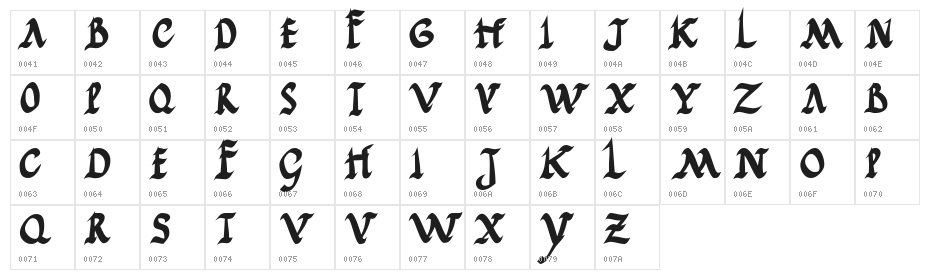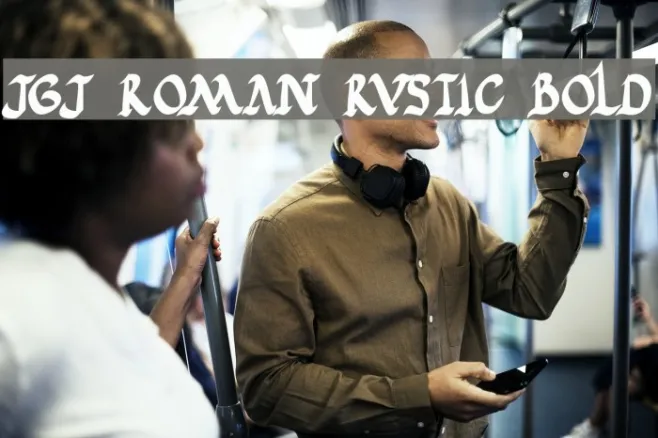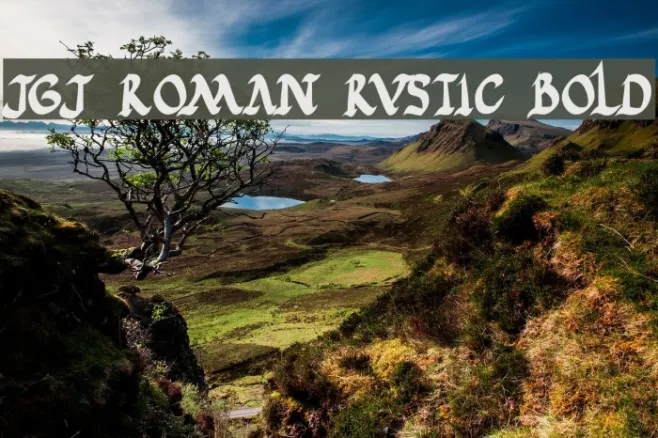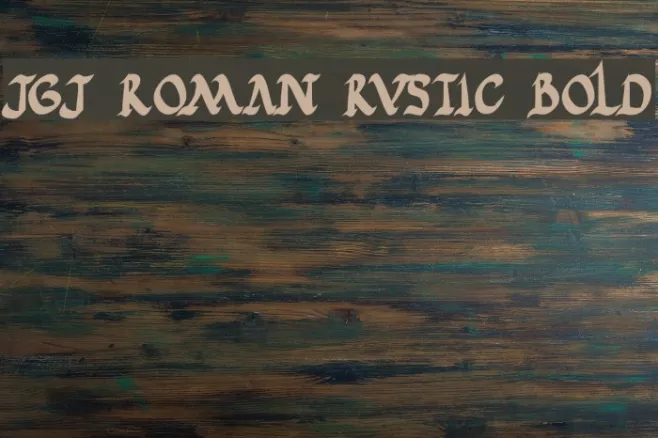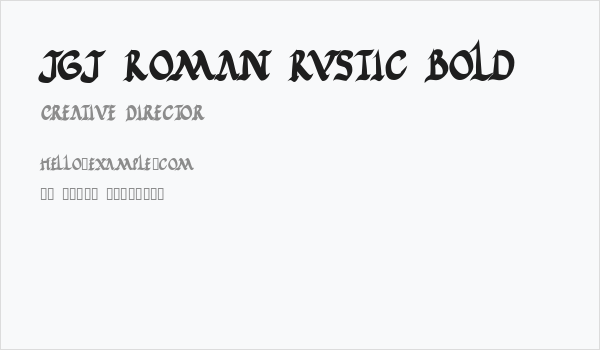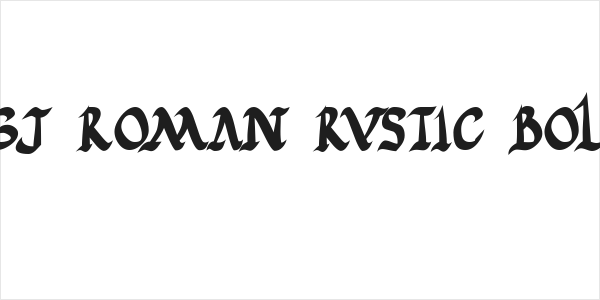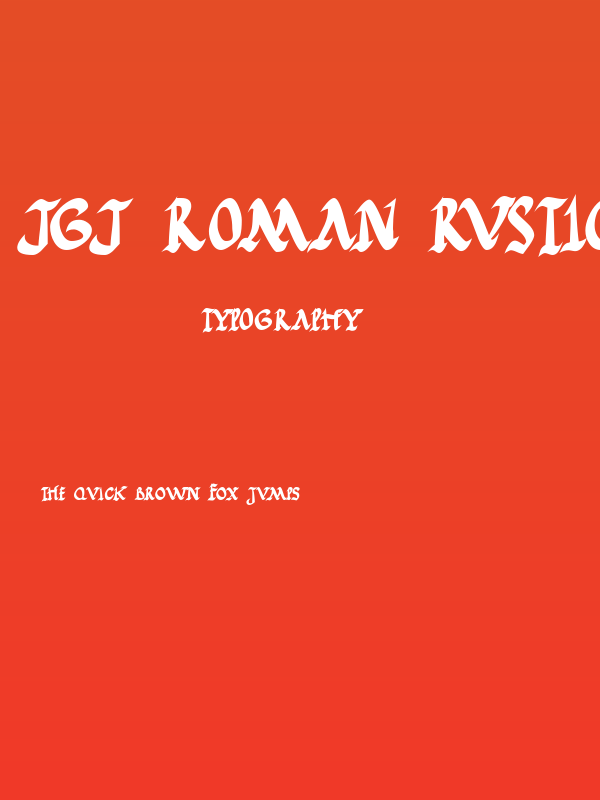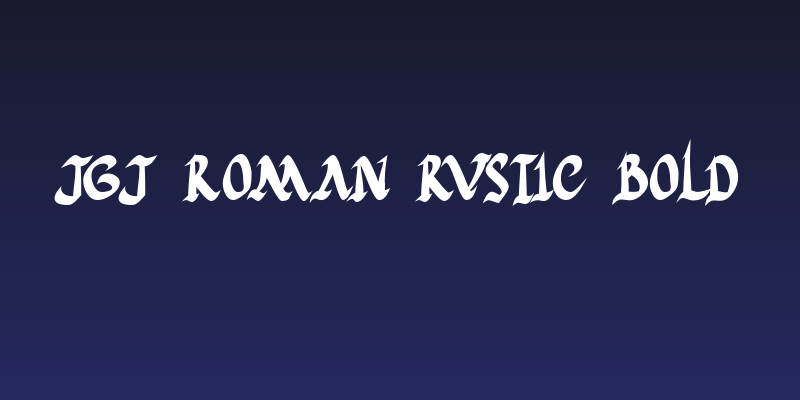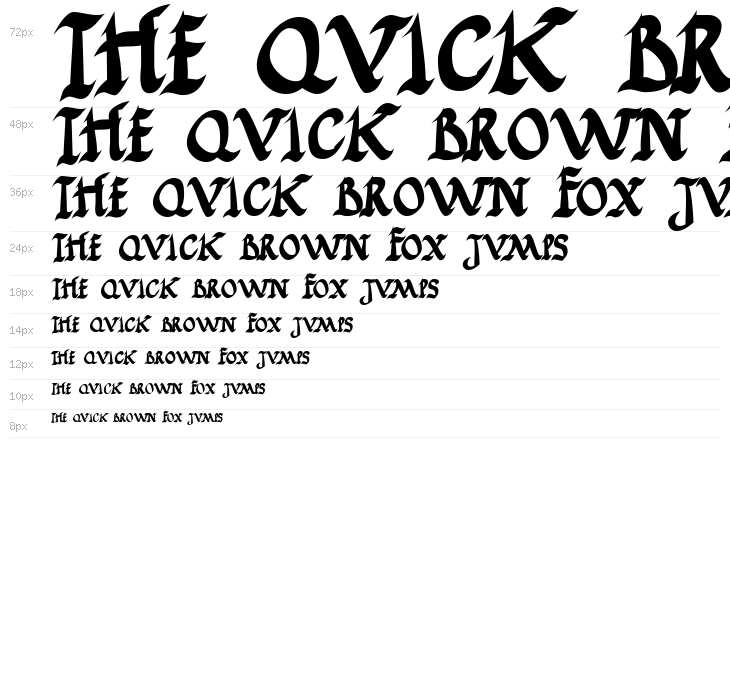
JGJ Roman Rustic Bold Font
JGJ Roman Rustic Bold Description
This font features a bold and rustic style with a distinct Roman influence. The characters are sharply defined with angular strokes and pronounced serifs, giving them a strong and commanding presence. The uppercase letters exhibit a traditional Roman flair, while the lowercase letters maintain a consistent boldness. The numbers and special characters are designed to complement the overall aesthetic, ensuring a cohesive look across all text. This font's unique style makes it suitable for projects that require a historical or classical touch.
| Proposed Projects | Ideal for historical documents, classical-themed posters, and branding that requires a strong, traditional look. |